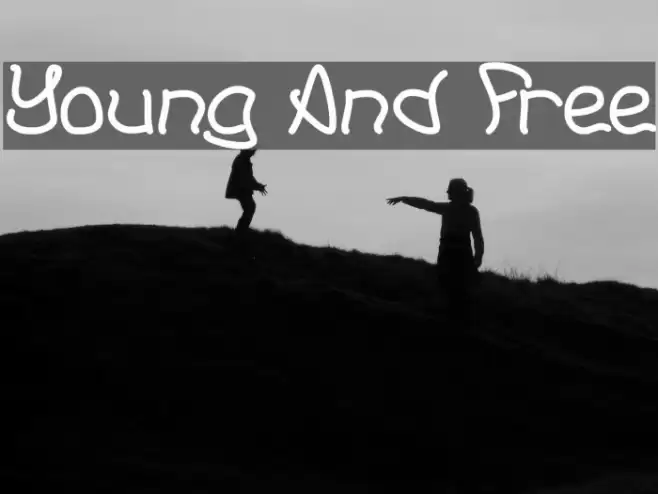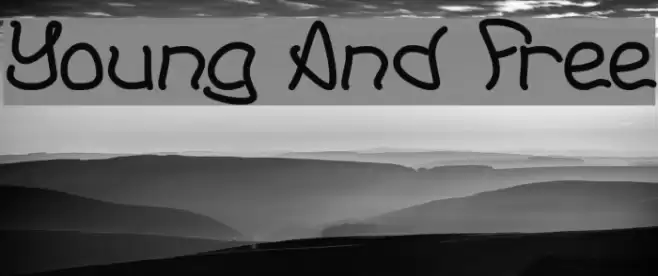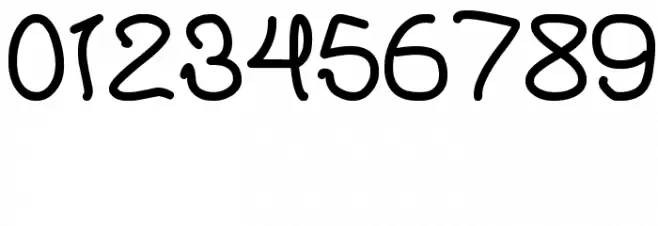
Young And Free Font
Young And Free Description
This playful and energetic font features a handwritten style with a whimsical flair. The characters are bold and rounded, giving them a friendly and approachable appearance. The strokes are consistent in weight, contributing to a cohesive look across all letters and numbers. The font maintains a casual and informal tone, making it ideal for projects that require a touch of personality and creativity. Its unique character shapes and slightly irregular lines add to its charm, making it stand out in any design.
A playful, handwritten font with bold, rounded characters and a whimsical style from Uncategorized fonts.
- Proposed Projects: Ideal for children's books, playful branding, greeting cards, and creative posters.
- Overall Style: Playful